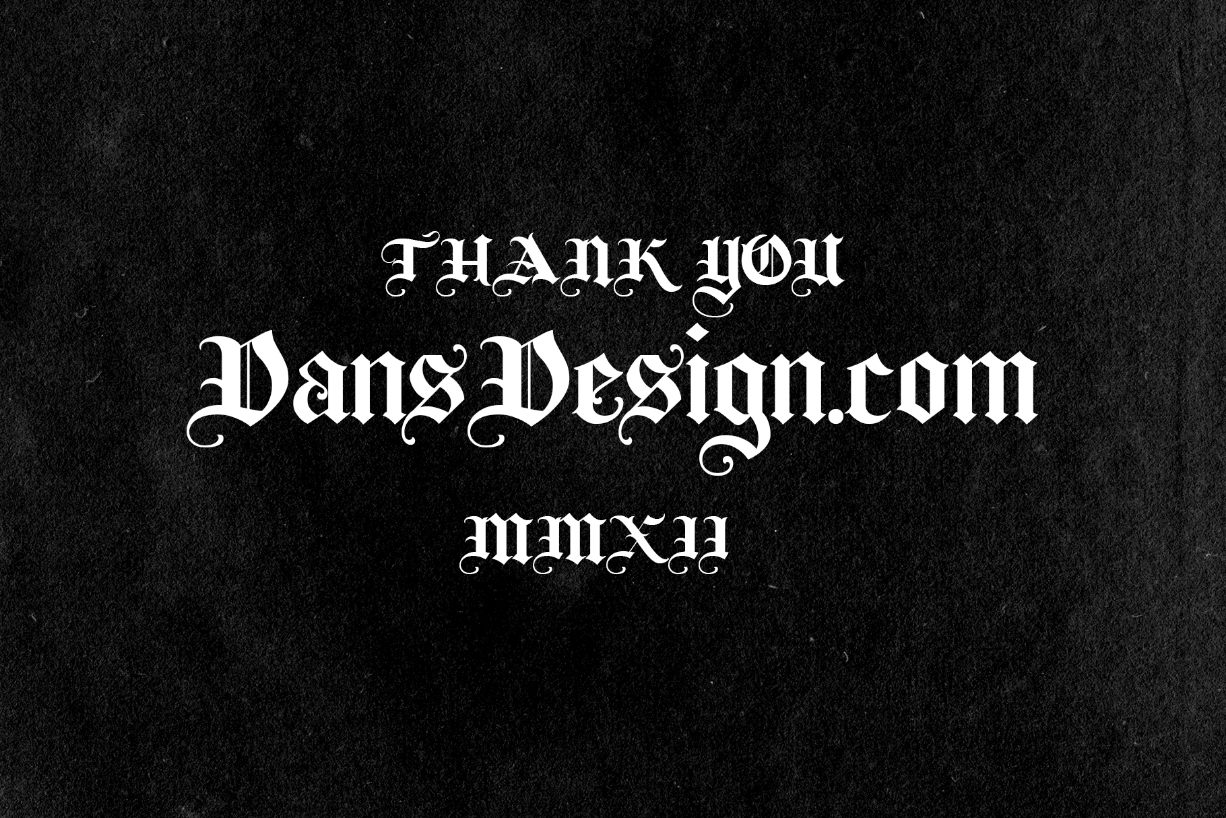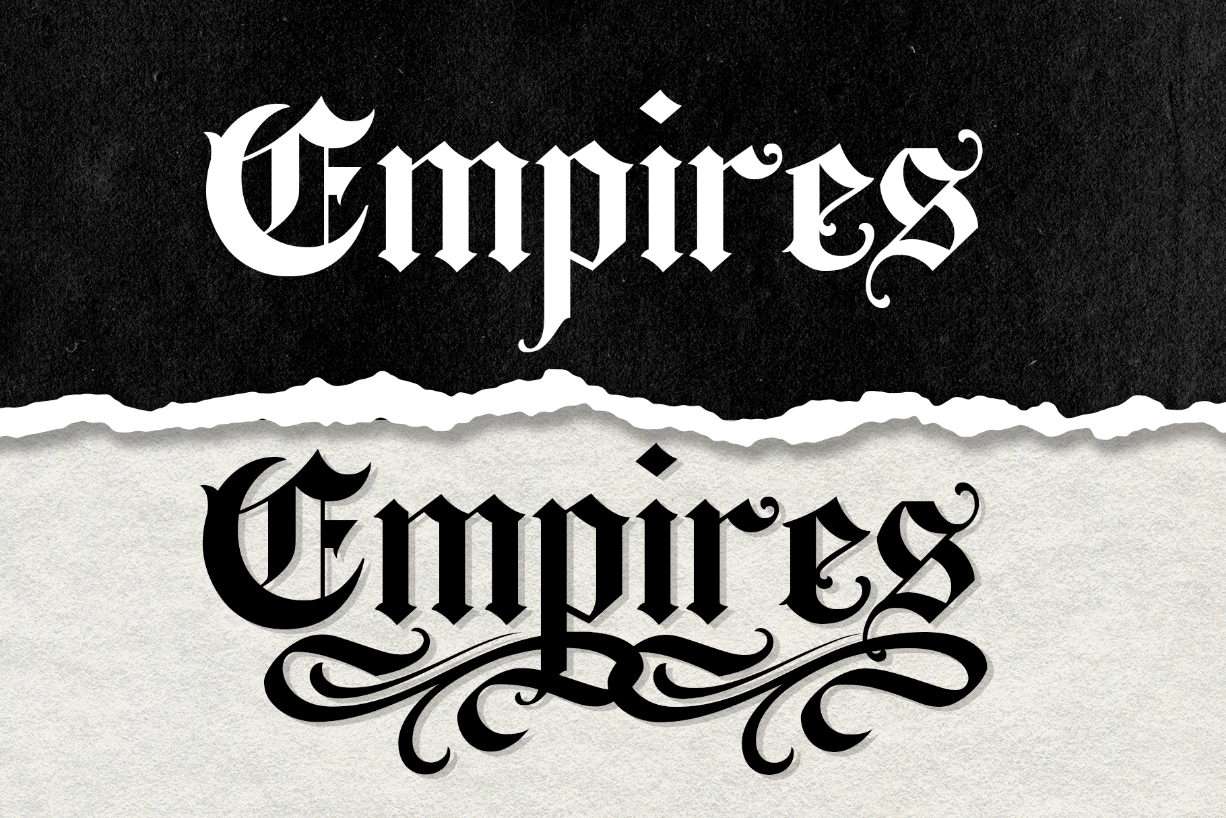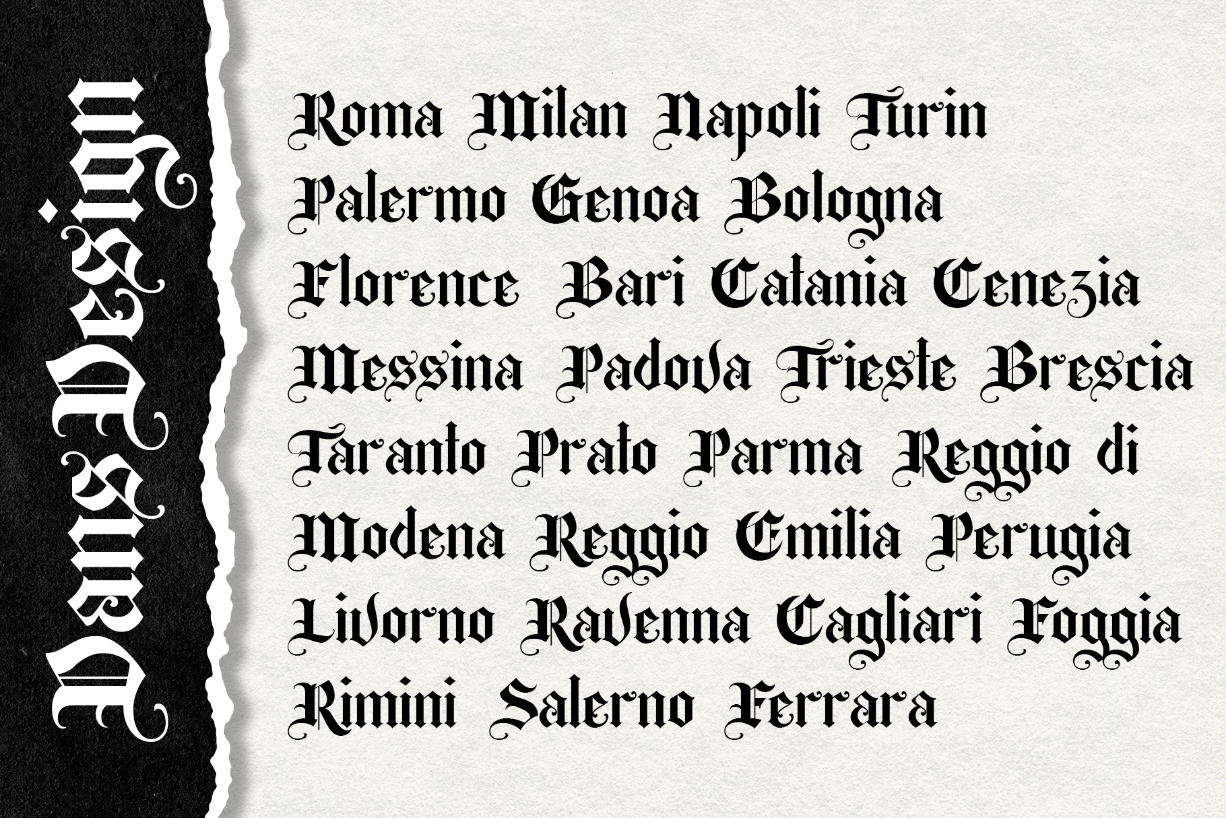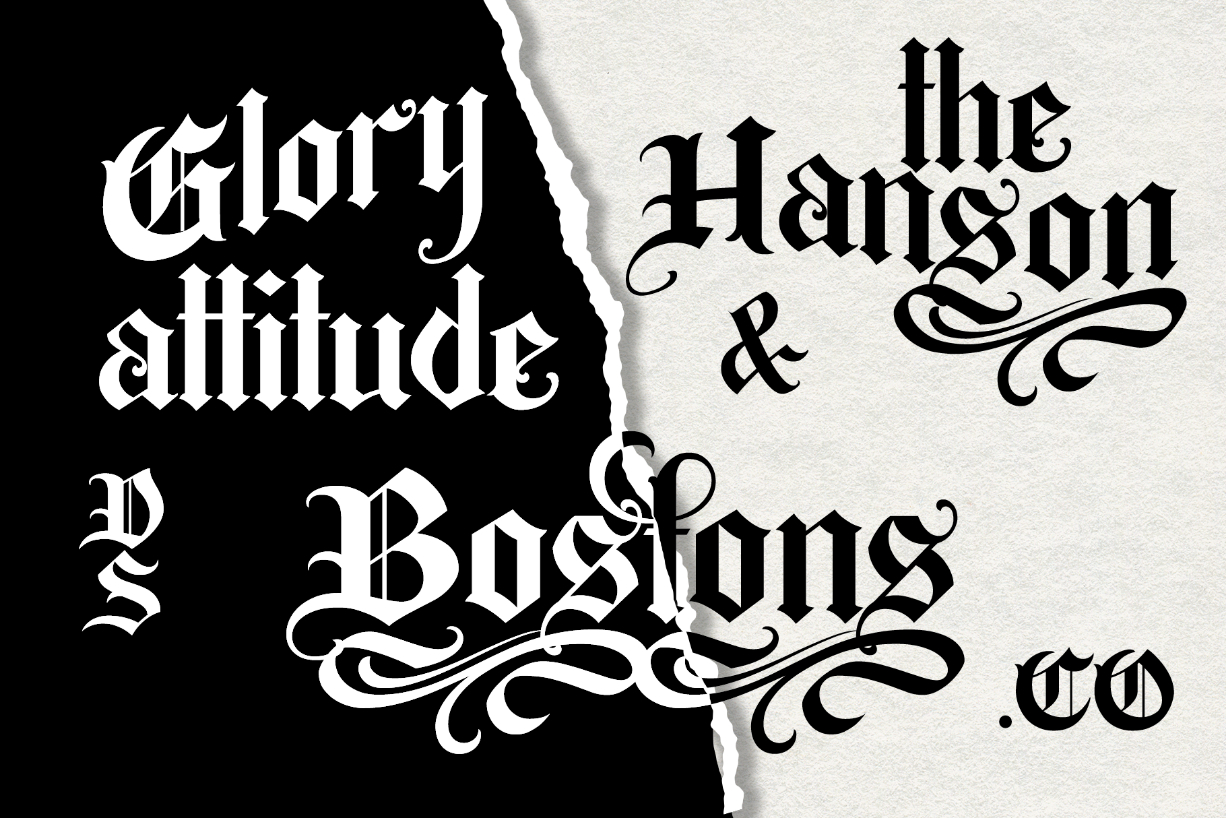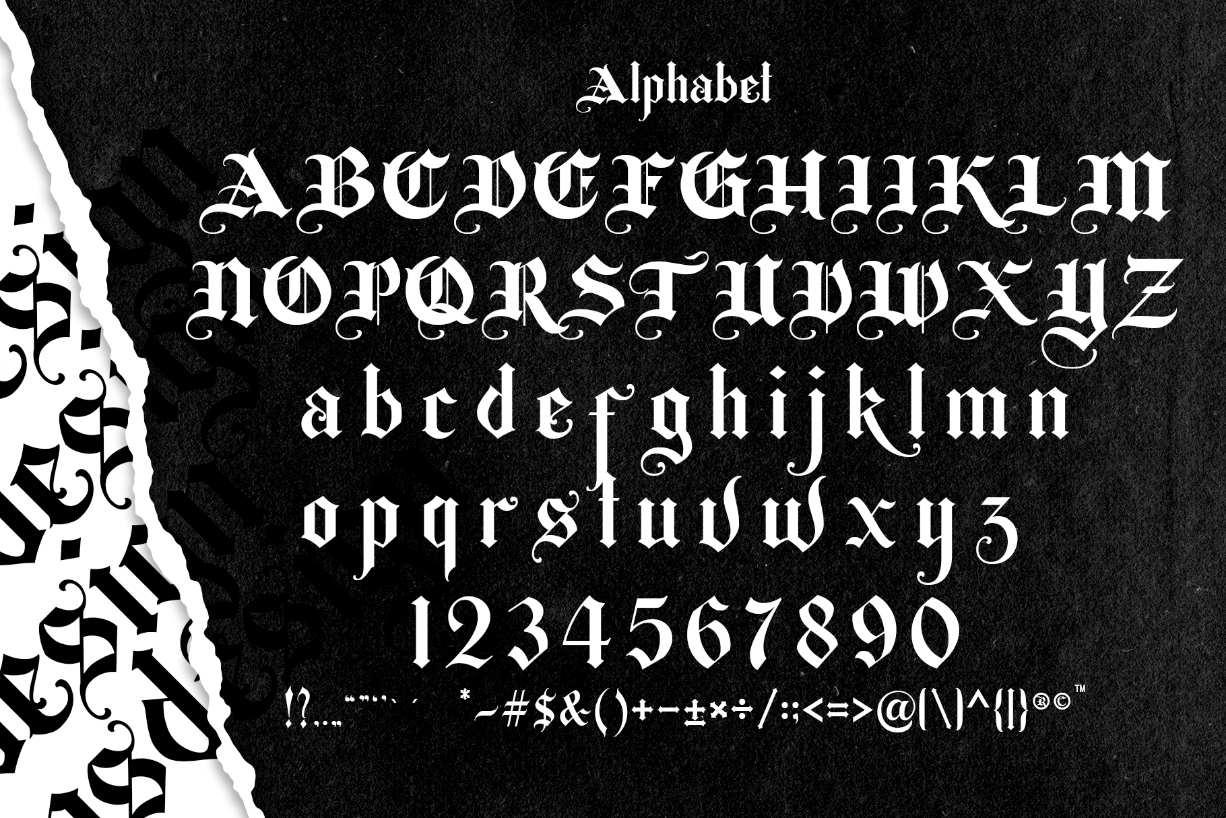
Empires is a distinct, highly detailed and chic blackletter font. It is PUA encoded which means you can access all of the glyphs and swashes with ease!